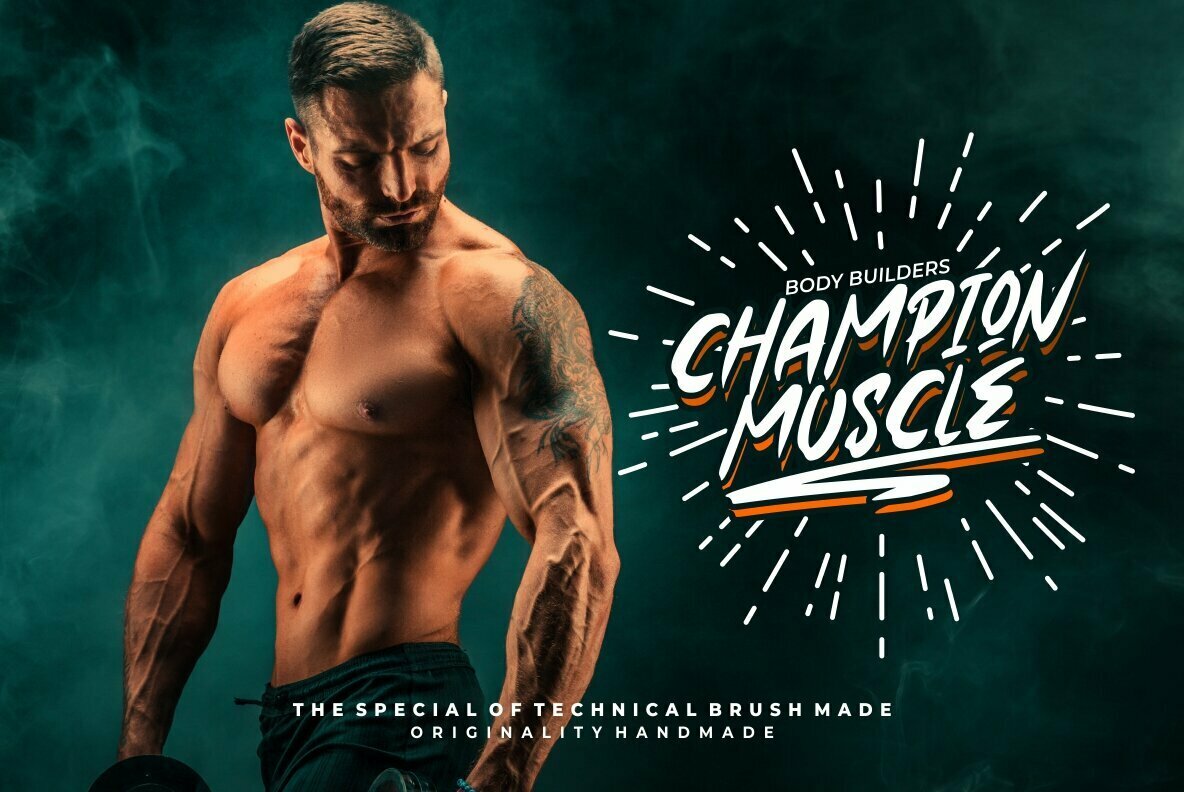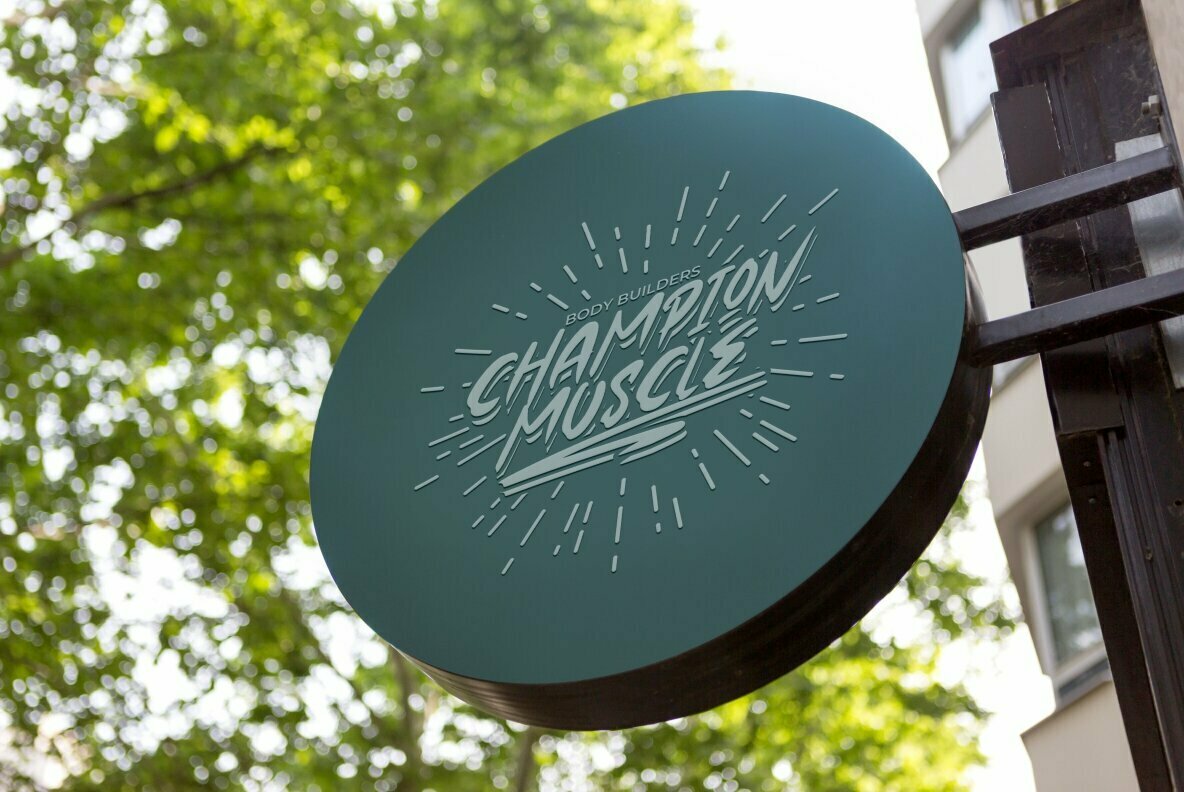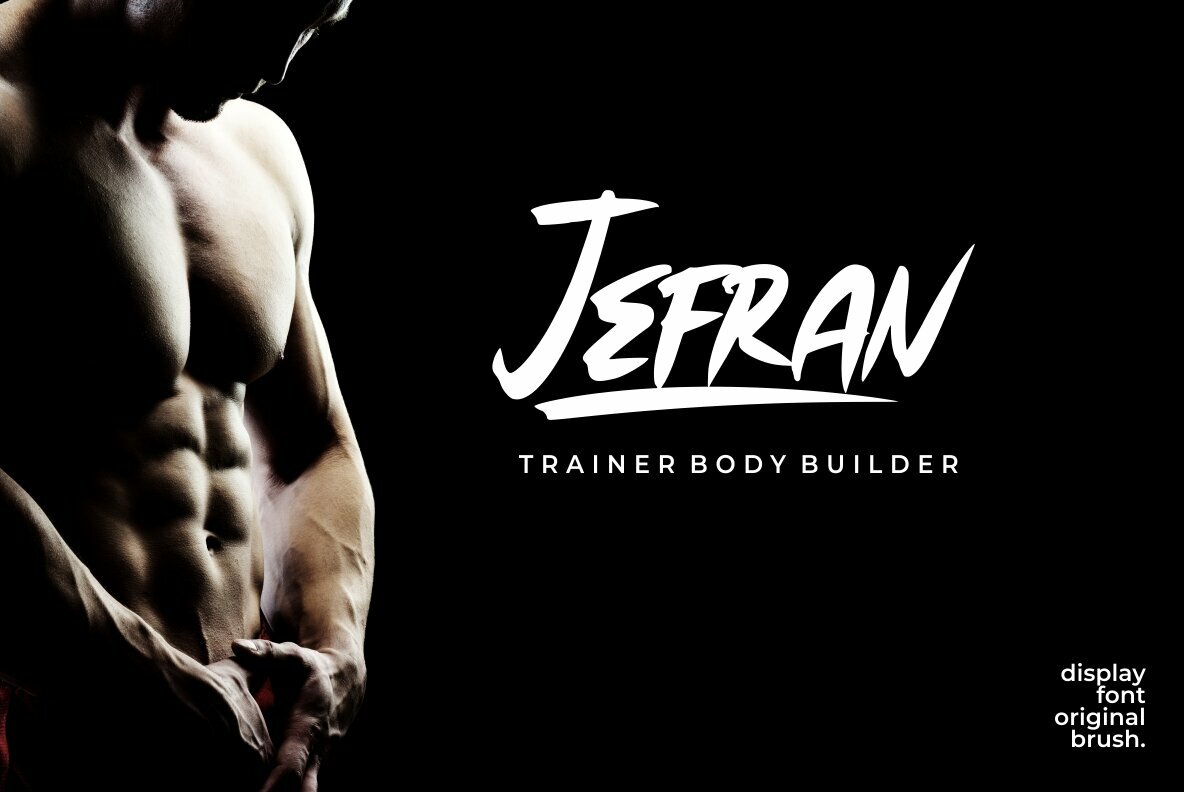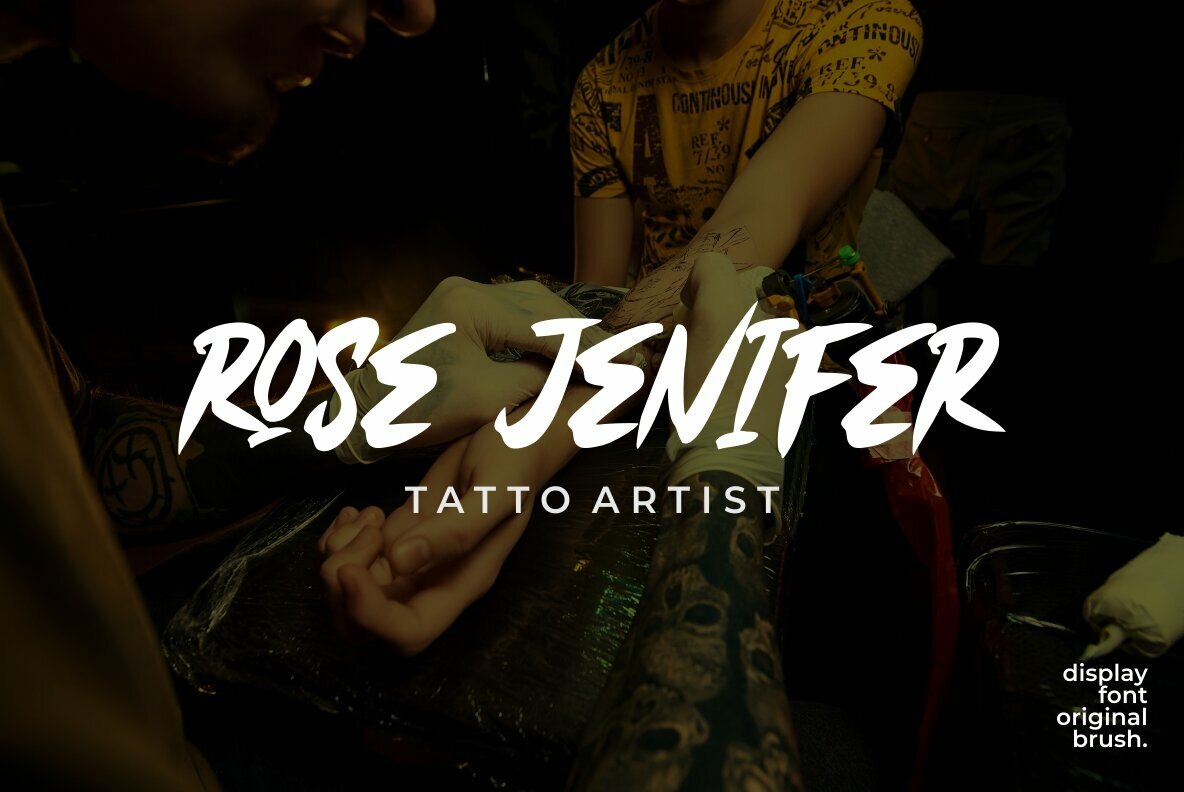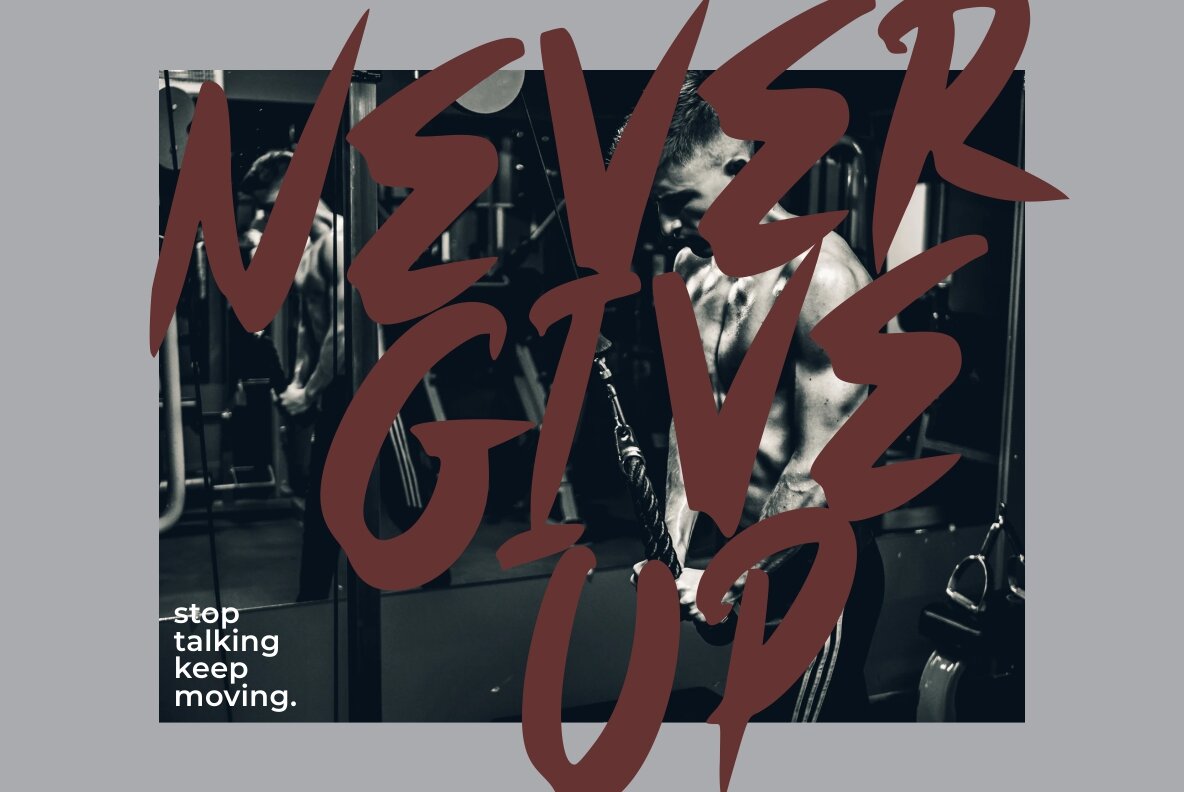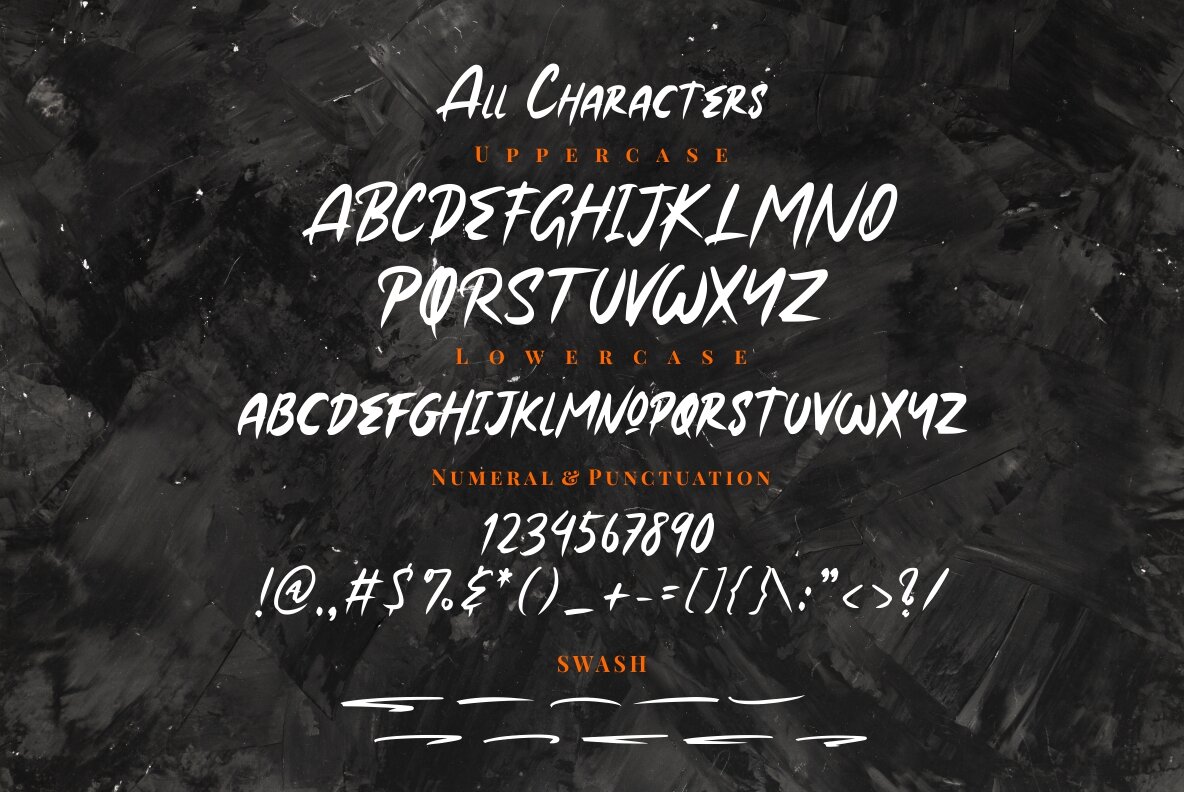
Roxer Font
Roxer
Born from the raw artistry of brush pens, Roxer captures the essence of hand-lettered craftsmanship. This typeface translates the fluid curves of personal handwriting into a digital form, allowing you to effortlessly craft striking and organic designs. From apparel projects to sophisticated signatures, Roxer provides the ideal touch for various applications. Roxer is versatile enough to complement projects such as logo designs, album covers, branding initiatives, and magazine layouts. Its natural flair also enhances social media graphics and advertisements. Features:Roxer: Authentic Handbrush Typeface